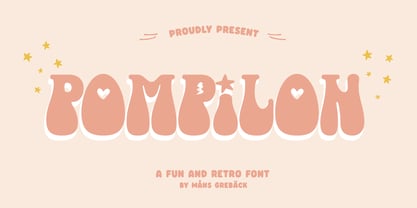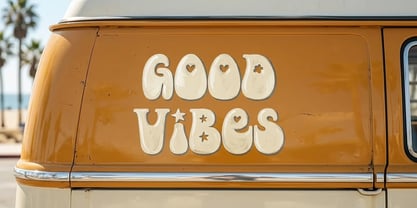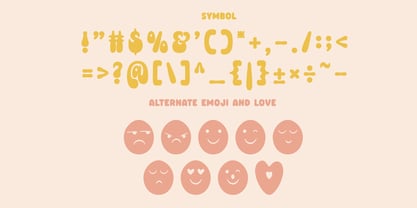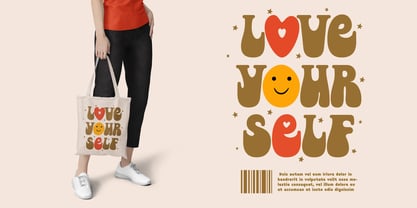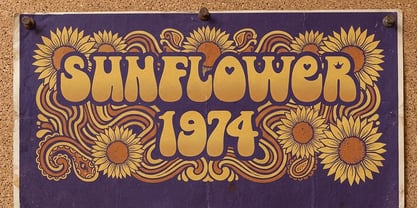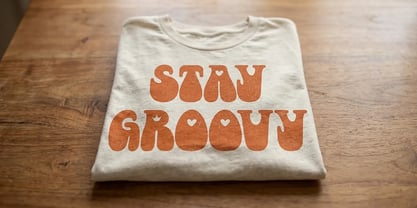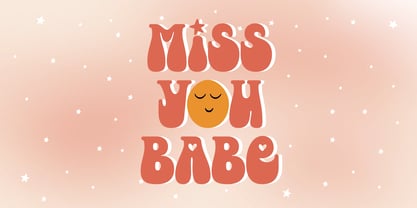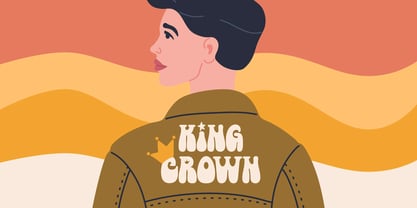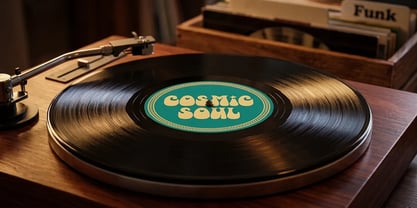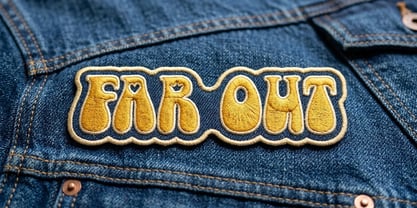
Pompilon
Pompilon is a chunky, groovy display typeface drawn in the spirit of nineteen-seventies bubble lettering.
The capitals are plump and full, built from heavy strokes and soft swelling curves that pack together with a warm, playful bounce. Little hearts, stars and blooms tuck into the counters and dot the letters, giving every word a cheerful, hand-drawn wink. It is loud, friendly and unmistakably retro - the kind of lettering you would expect across a roller-disco marquee, a tub of ice cream, or the side of a sun-faded camper van.
Designed and created by Mans Greback.
The font is built with advanced functionality and guaranteed top-notch quality, containing stylistic and contextual alternates, ligatures and more automatic and manual features; all to give you full control and customizability.
It has extensive lingual support, covering all Latin-based languages, from North Europa to South Africa, from America to South-East Asia. It contains all characters and symbols you'll ever need, including all punctuation and numbers.